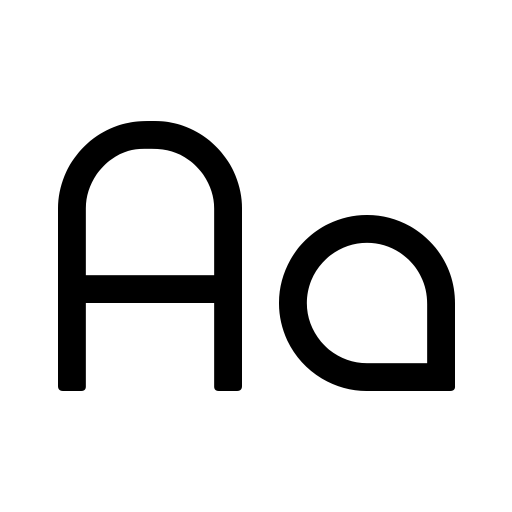
Bambhout Connect Trial is a modern sans serif font with a distinctive geometric and connected style that gives it a sleek, futuristic feel. Its upright, clean lines combined with rounded terminals create an approachable yet tech-savvy personality, making it ideal for innovative branding, digital interfaces, and contemporary editorial design. This font works well in headlines or logos where a unique and modern look is desired.
Bambhout Connect Trial Font
About Bambhout Connect Trial Font
| Font family | Bambhout Connect Trial Font |
| Designer | Florian Bambhout |